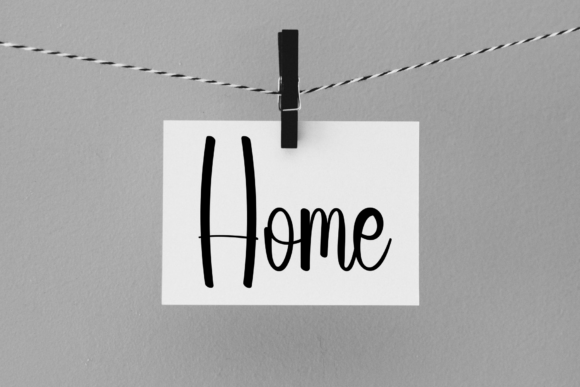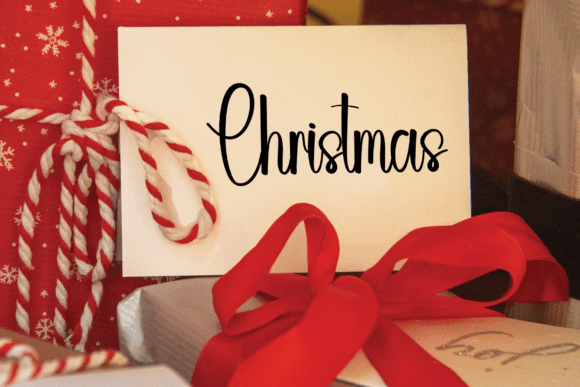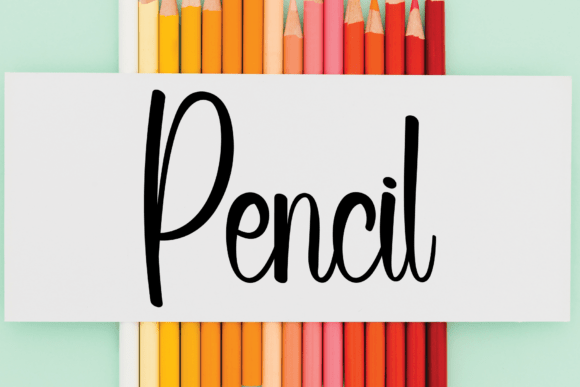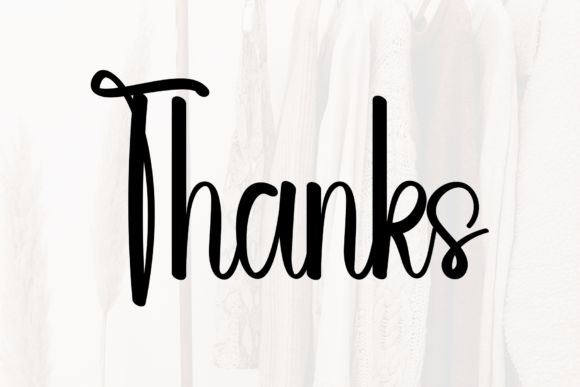
Introduction to Multilayer Font
Have you ever stared at a blank canvas, struggling to bring your creative vision to life? It’s a moment we’ve all been there – the blank page, the empty screen, and the overwhelming feeling that our ideas just aren’t translating into reality. But what if I told you that there’s a design resource that can help you break through that creative block and bring your unique style to the forefront?
Enter the Multilayer Font, a stunning handwritten font that exudes a relaxed and sporty feel, perfect for branding, logos, wedding supplies, greeting cards, fashion, lookbooks, and marketing promotions. With its luxurious and elegant yet casual vibe, this font is a game-changer for designers looking to elevate their creative project to the next level.
Whether you’re working on a high-quality design project or simply need a free download to spice up your social media posts, the Multilayer Font is an invaluable addition to any design arsenal. With its transparent background and high-quality design, this font is sure to make your designs stand out from the crowd.
Key Features of Multilayer Font
- Unique Layered Design: The Multilayer Font allows for seamless layering, enabling designers to create complex and intricate designs with ease.
- High-Quality Graphics: The font is designed with high-resolution graphics, ensuring that it looks crisp and clear on various devices and resolutions.
- Transparent Background: The font’s transparent background allows for effortless integration with any design, making it a versatile design resource.
- Perfect for Creative Projects: The Multilayer Font is ideal for designers working on creative projects, such as branding, advertising, and digital art, where intricate designs and layering are essential.
Honest Review: Multilayer Font
I recently stumbled upon the Multilayer Font, a design resource that’s got me excited about typography. One of the standout features is its ability to work seamlessly with a transparent background, making it perfect for creative projects where background textures come into play.
- ✨ High-quality design that’s visually appealing
- ✨ Versatile font that can be used for a wide range of creative projects
However, I did encounter a few limitations with the Multilayer Font. For instance:
- ⚠️ The font is not suitable for use in complex, multi-layered compositions, as it can become difficult to read and navigate
Overall, I’m impressed with the Multilayer Font. It’s a solid addition to any designer’s toolkit, and its high-quality design makes it a great choice for creative projects. While it may have some limitations, the benefits far outweigh the drawbacks, making it a worthwhile investment for any serious designer.